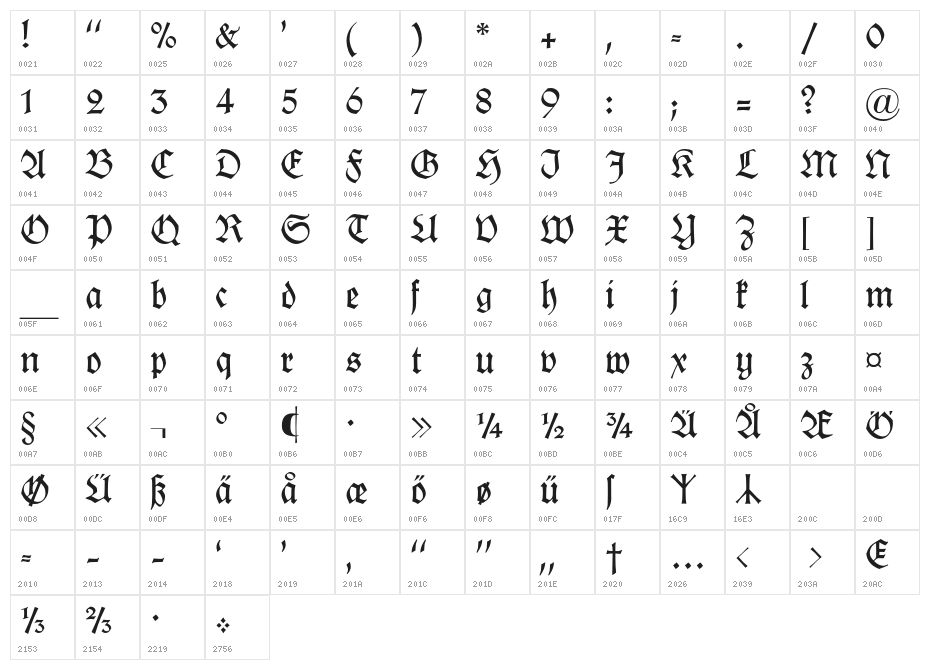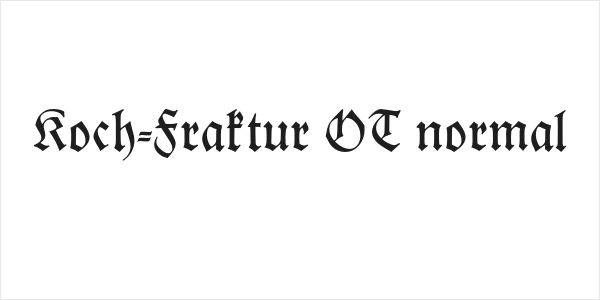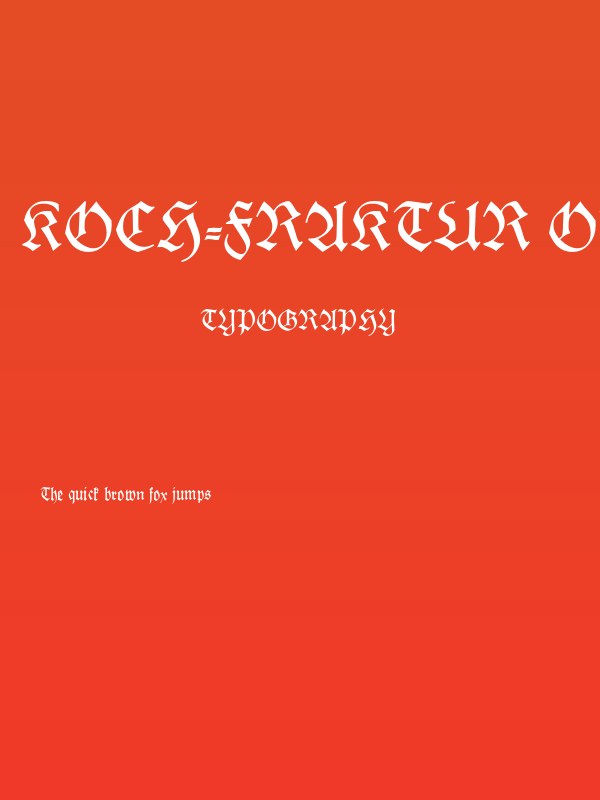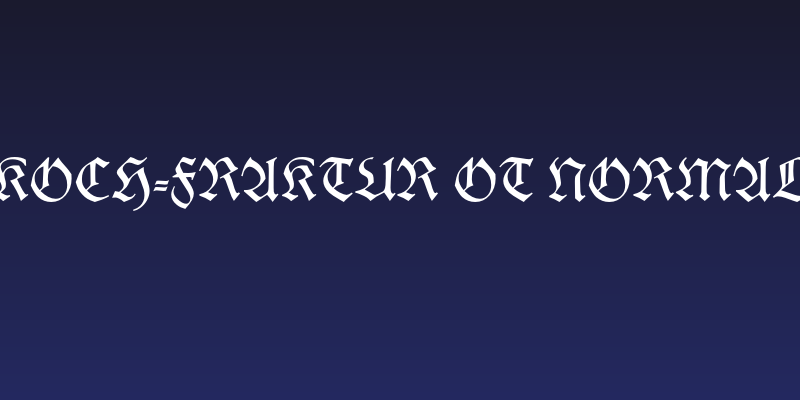
Koch-Fraktur OT normal Font
Koch-Fraktur OT normal Description
This font embodies the traditional elegance and intricate detailing characteristic of Blackletter typefaces. The uppercase letters feature sharp, angular lines with a distinct medieval flair, while the lowercase letters maintain a consistent flow with ornate curves and pointed edges. The numerals are bold and maintain the same stylistic elements, ensuring cohesion throughout the typeface. Special characters are designed with a similar attention to detail, enhancing the overall aesthetic. This font evokes a sense of historical richness and is perfect for projects that require a touch of classic sophistication.
| Use Case | Headlines, Logos, Decorative purposes |
| Proposed Projects | Ideal for historical documents, certificates, book covers, and branding that requires a classic touch. |